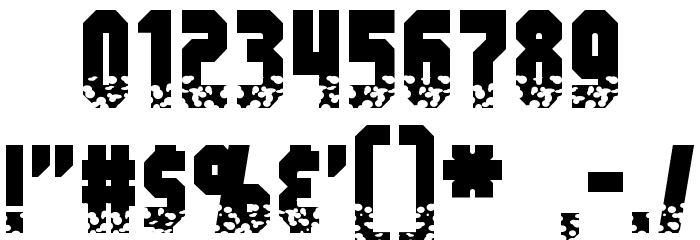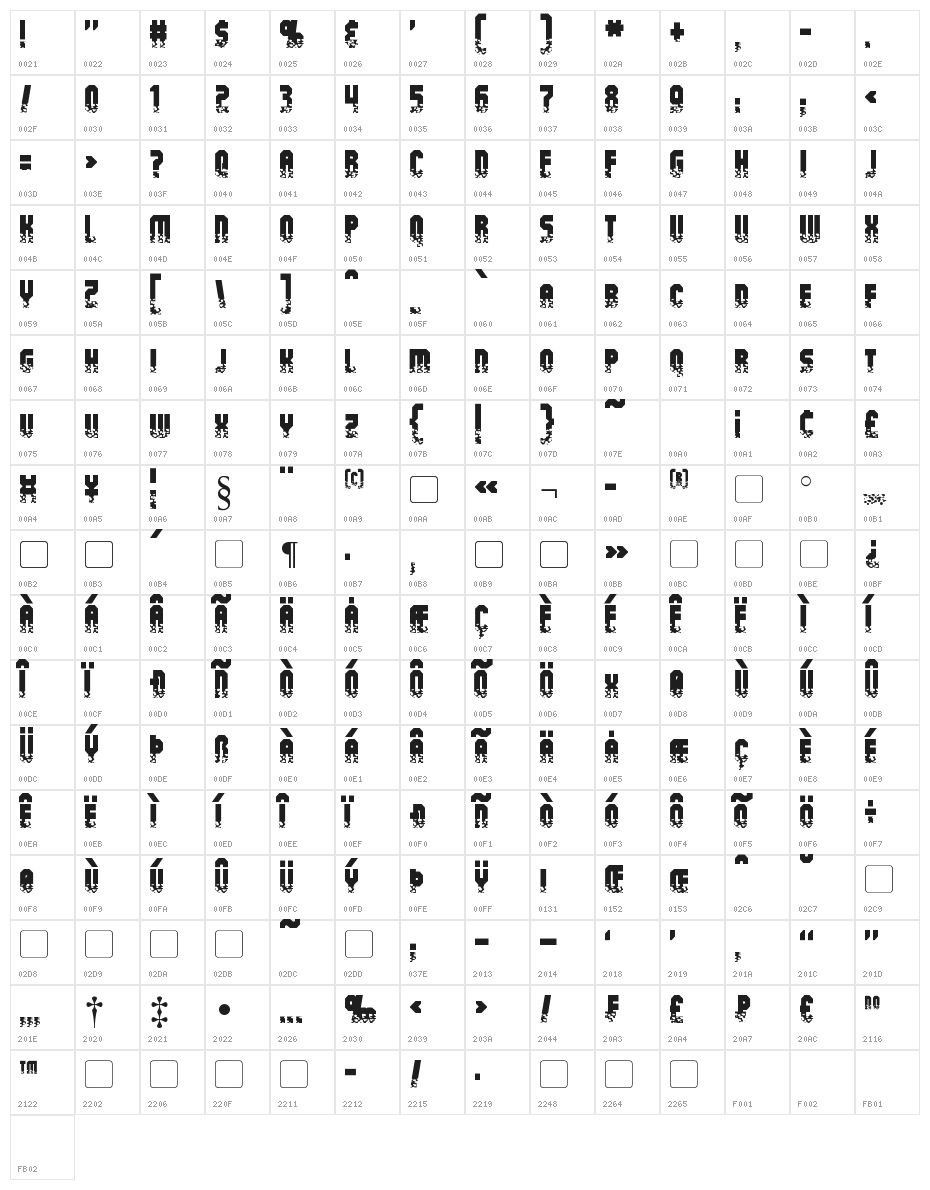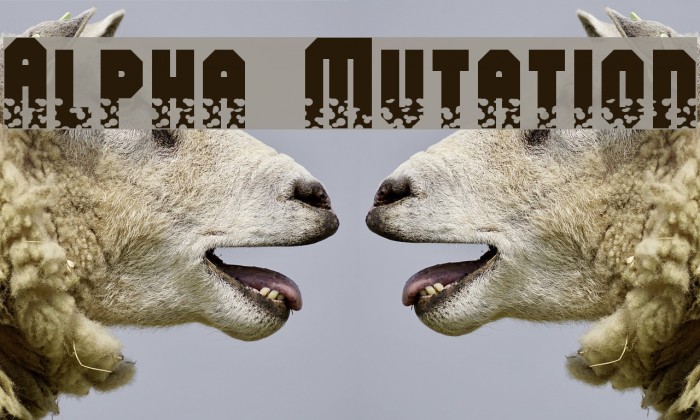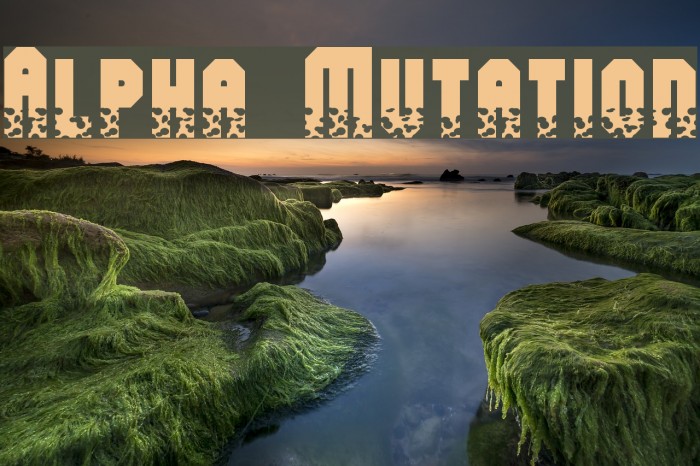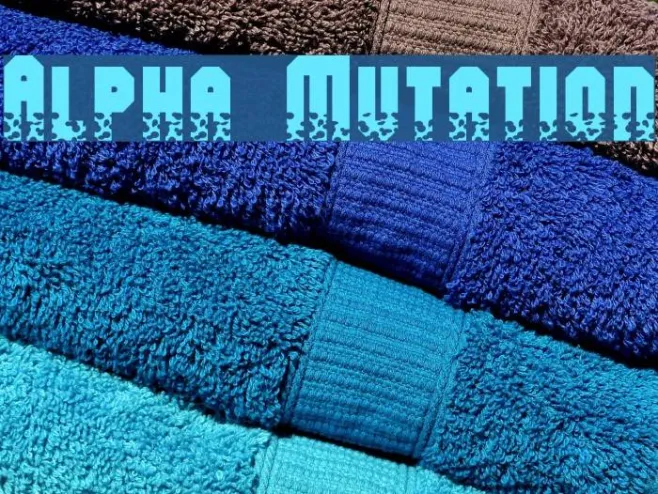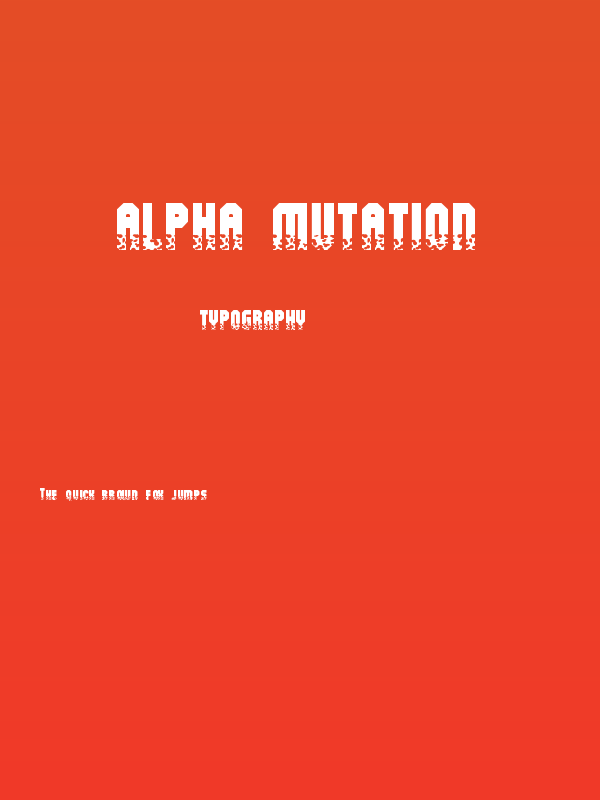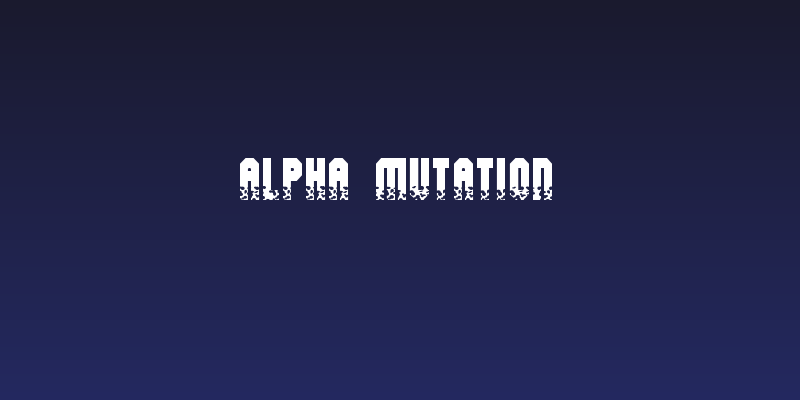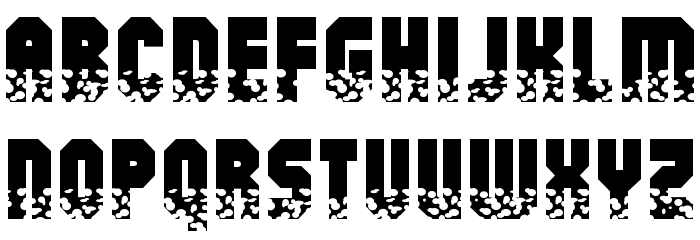
Alpha Mutation Font
Alpha Mutation Description
This font features a bold, decorative style with a unique, fragmented texture that gives it a distinctive, edgy appearance. The characters are blocky and robust, with a high level of detail in the lower portions, resembling a digital or pixelated erosion effect. This design creates a striking contrast between the solid upper sections and the intricate lower halves. The uppercase and lowercase letters maintain a consistent style, while the numbers and special characters follow the same thematic design, ensuring a cohesive look across all elements. The font's boldness and decorative nature make it ideal for eye-catching designs.
| Overall Style | Modern, Edgy |
| Proposed Projects | Ideal for video game titles, sci-fi posters, edgy branding, and digital art projects. |